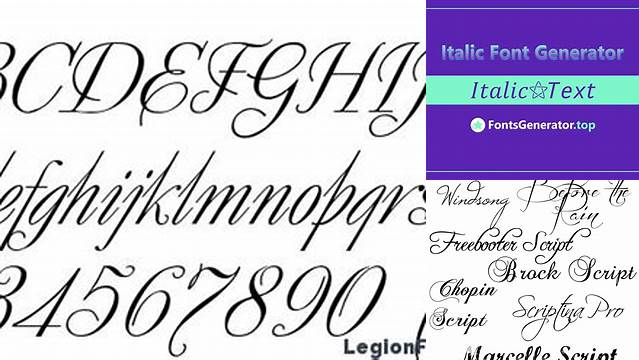
Italic Fonts: Copy And Paste For Free!
Hey guys! Ever wanted to add a little flair to your social media posts, documents, or even just your texts? One super easy way to do that is by using italic fonts. But, let's be real, digging through font menus can be a drag. That's where the magic of "copy and paste" comes in! In this guide, we'll dive into everything you need to know about using free italic fonts with a simple copy and paste.
What are Italic Fonts and Why Use Them?
So, what's the big deal with italic fonts anyway? Italics are a style of typeface where the letters are slanted to the right. They're not just for looking fancy (though they definitely do add a touch of elegance!). Here's why you might want to use them:
- Emphasis: Need to make a word or phrase stand out? Italics are your best friend. They gently draw the reader's eye without being as shouty as ALL CAPS.
- Titles of Works: Books, movies, albums – these often get the italic treatment. Think Harry Potter and the Sorcerer's Stone or Abbey Road.
- Foreign Words: When you're using a word that's not native to the language you're writing in, italics can set it apart. For example, joie de vivre.
- Technical Terms: In academic writing or technical documentation, italics can be used to introduce new or specific terms.
- Dialogue or Internal Thoughts: In creative writing, italics can represent a character's thoughts or unspoken words.
The beauty of using italic fonts is that they're versatile. They can add sophistication to a formal document or a playful touch to a casual message. Plus, they're super easy to implement, especially with the copy and paste method we're about to explore.
Copy and Paste Italic Font Generators
Okay, so you've found your italic font. Now, how do you actually use it without installing anything? That's where italic font generators come in. These handy tools let you type in your text, and they'll instantly convert it into italics (or other fancy styles) that you can then copy and paste wherever you want. Here's how they work:
- Find a Generator: A quick Google search for "italic font generator" will turn up tons of options. Some popular ones include YayText, LingoJam, and FontGet.
- Type Your Text: Once you're on the generator's website, you'll usually see a text box where you can type in the text you want to convert.
- Choose Your Style: Most generators offer a few different italic styles (e.g., slightly slanted, more slanted, script-like). Pick the one that tickles your fancy.
- Copy and Paste: Once you've selected your style, the generator will create the italicized text. Simply copy it and paste it into your social media post, document, or wherever else you need it.
These generators work by using special Unicode characters that look like italics. This means they're not technically using a different font, but rather a clever workaround. The downside is that these characters might not display correctly on all platforms or devices, but for most common uses, they work perfectly fine.
Where Can You Use Copy and Paste Italic Fonts?
The beauty of copy and paste italic fonts is that you can use them just about anywhere that supports text input! Here are a few ideas:
So, there you have it! Using free italic fonts with copy and paste is a simple and effective way to add some visual interest to your text. Whether you're trying to emphasize a point, highlight a title, or just add a little personality to your messages, these tools can help you achieve your goals. Just remember to choose your fonts wisely, double-check the licensing terms, and use italics in moderation. Happy styling, guys! And remember, a little flair can go a long way!